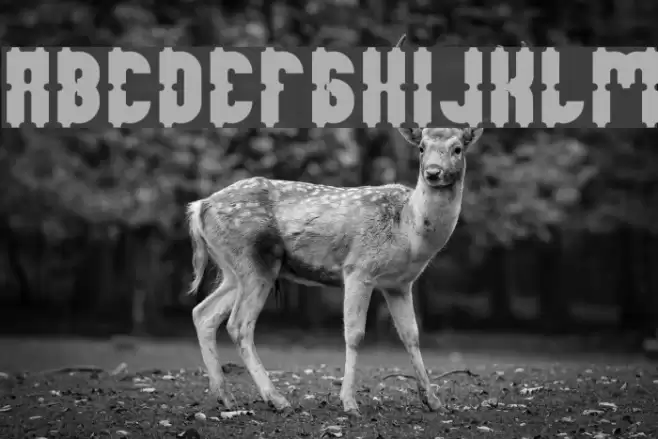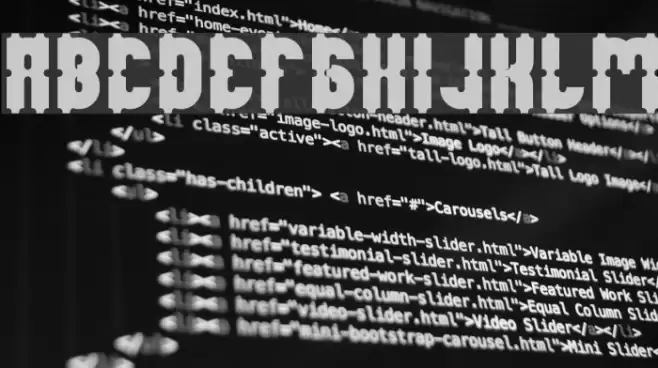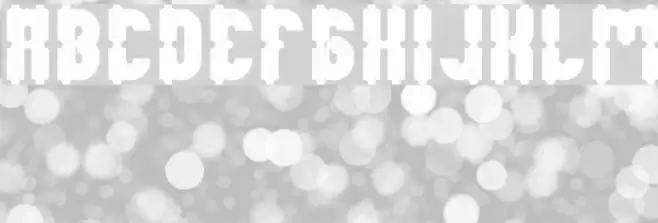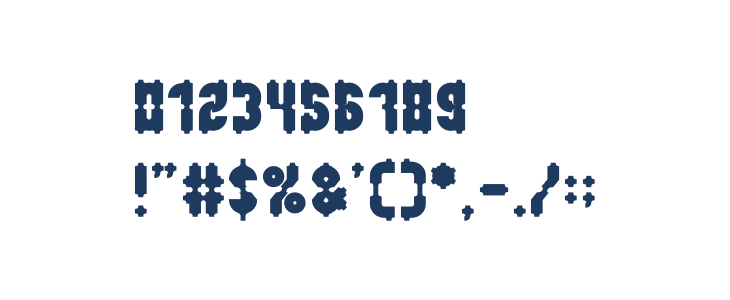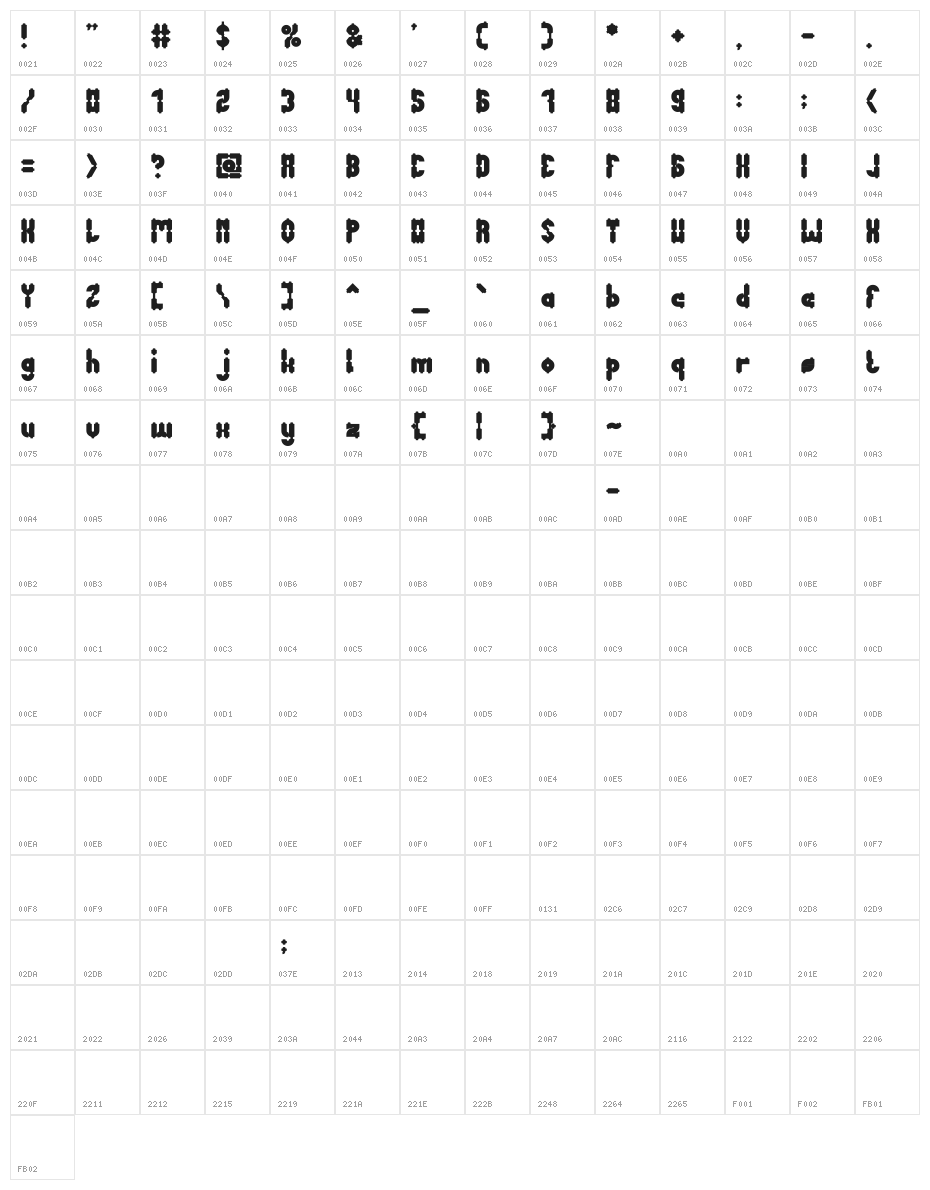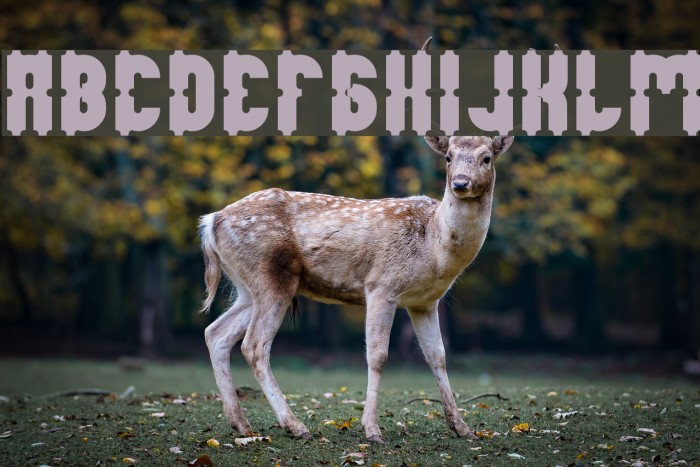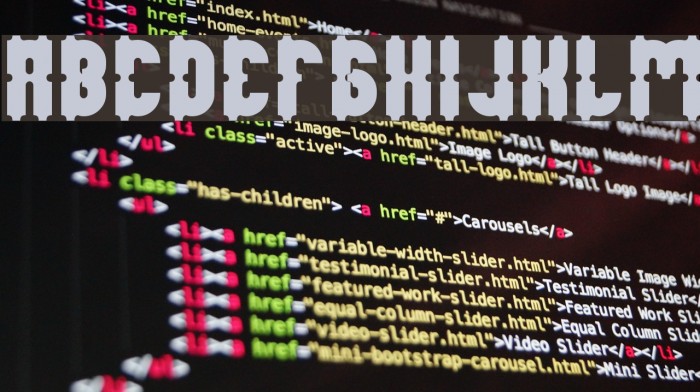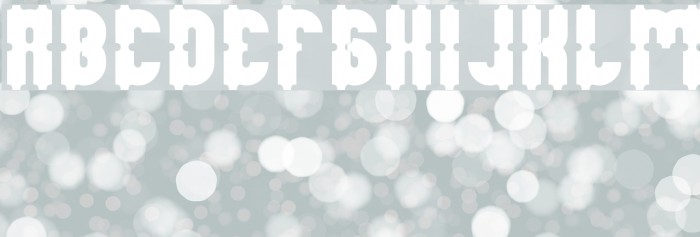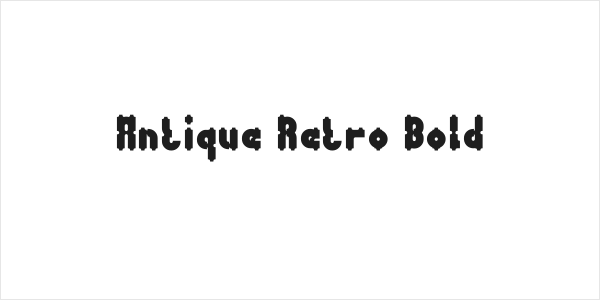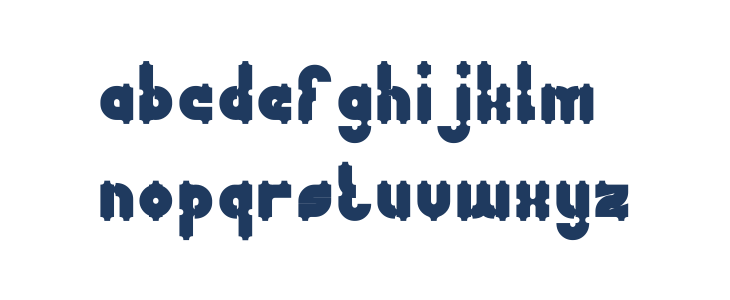
Antique Retro Bold Font
Antique Retro Bold Description
This font features a bold, antique style with a retro flair. The characters are heavily stylized with thick strokes and unique cut-out details that give it a distinct, decorative appearance. The uppercase and lowercase letters maintain a consistent weight, contributing to its bold presence. The numerals and special characters share the same design elements, ensuring a cohesive look across all glyphs. The font's design is reminiscent of vintage signage or posters, making it ideal for projects that require a touch of nostalgia or a statement piece.
A bold, antique-style font with retro decorative elements from Uncategorized fonts.
- Proposed Projects: Ideal for vintage-themed posters, retro branding, signage, and decorative headlines.
- Overall Style: Vintage